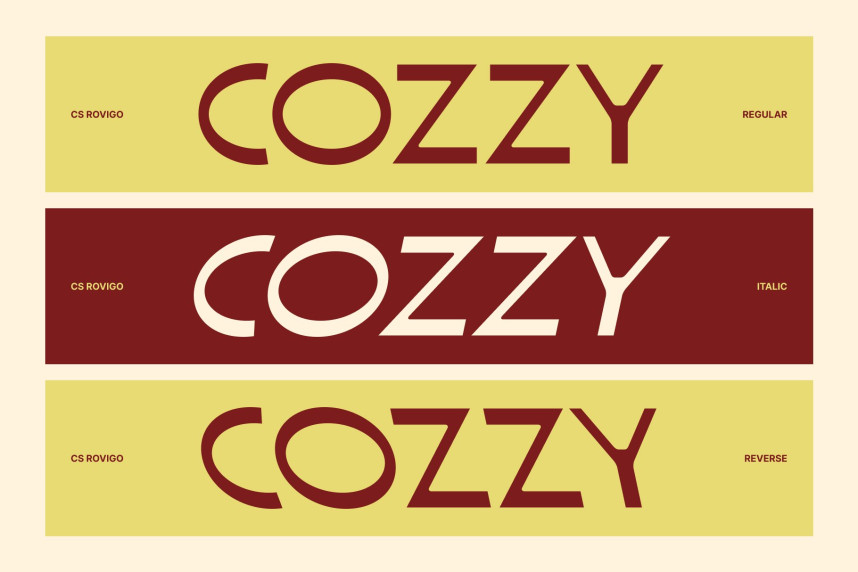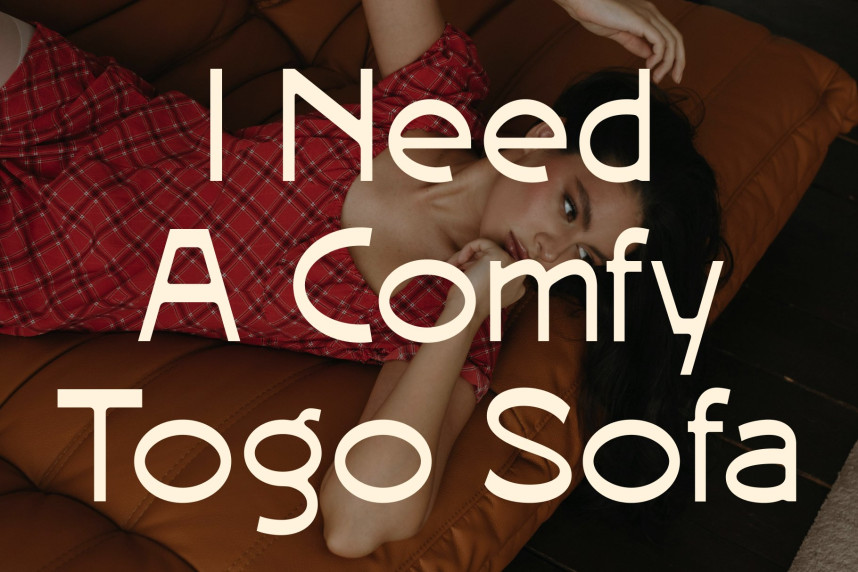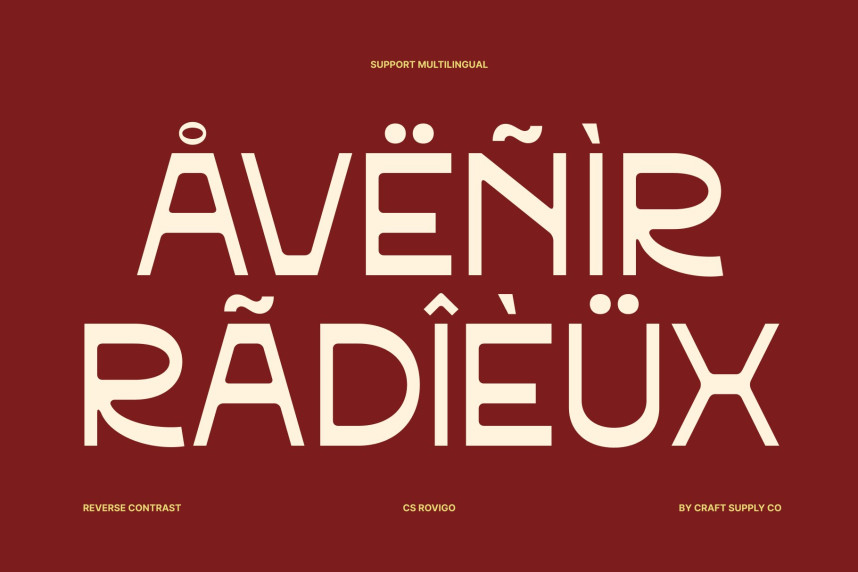
CS Rovigo Font
CS Rovigo Font – Retro Modern Sans Serif with Playful Geometry
Modern Sans Serif with Retro Inspiration
This is a modern sans serif font that blends retro charm with contemporary clarity. Its smooth shapes and balanced proportions create a friendly, approachable personality while maintaining a clean and modern structure. The result is a typeface that feels nostalgic yet fresh, perfect for designs that celebrate both past and present influences.